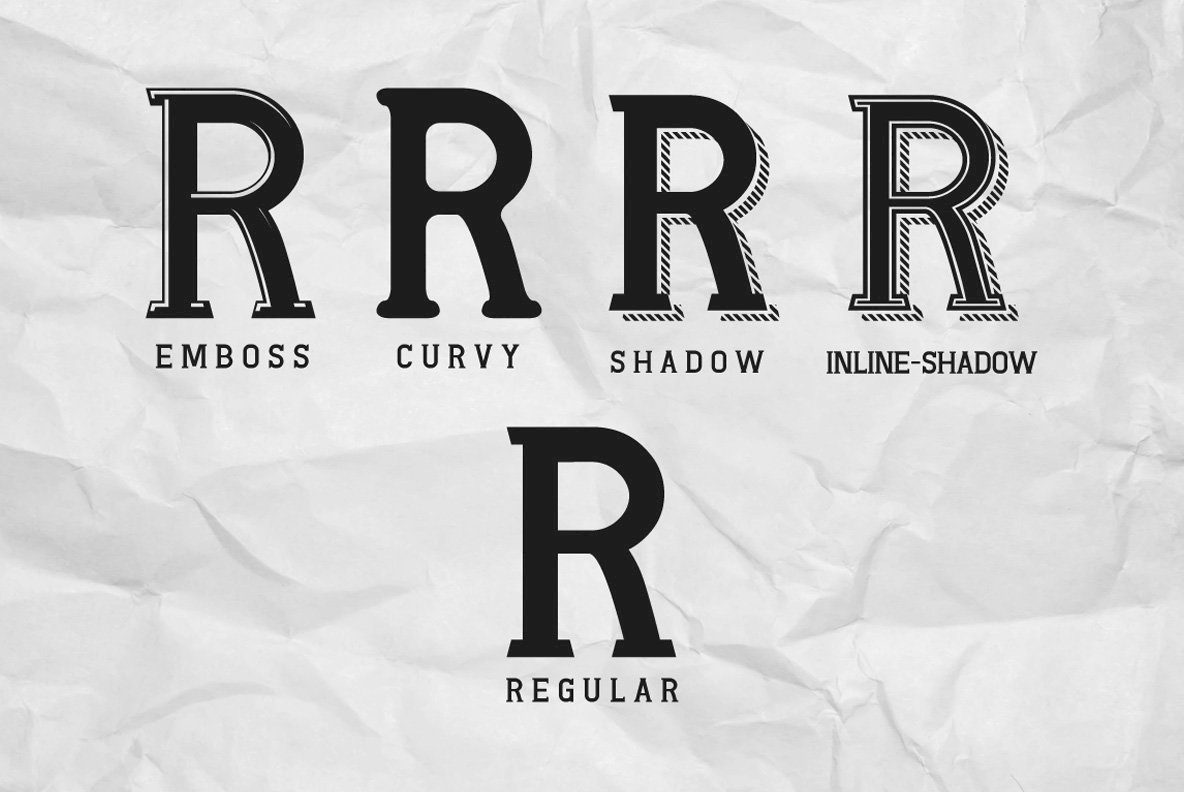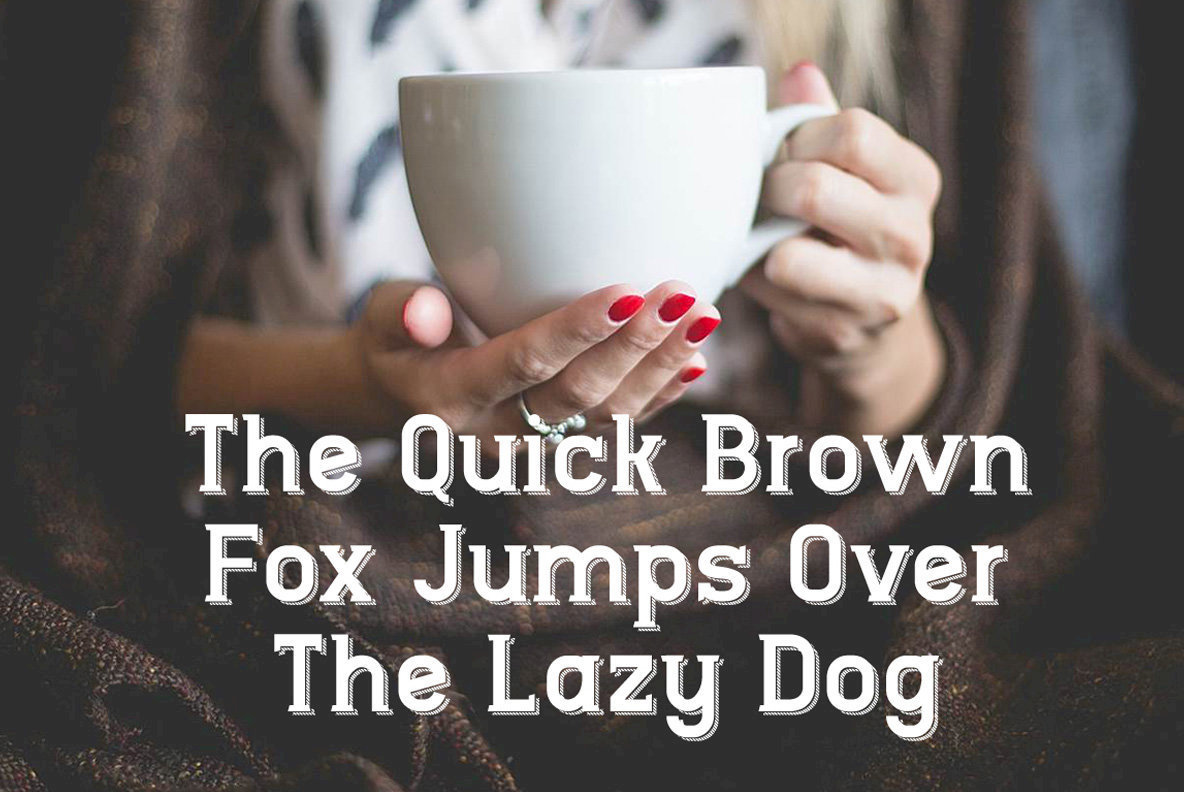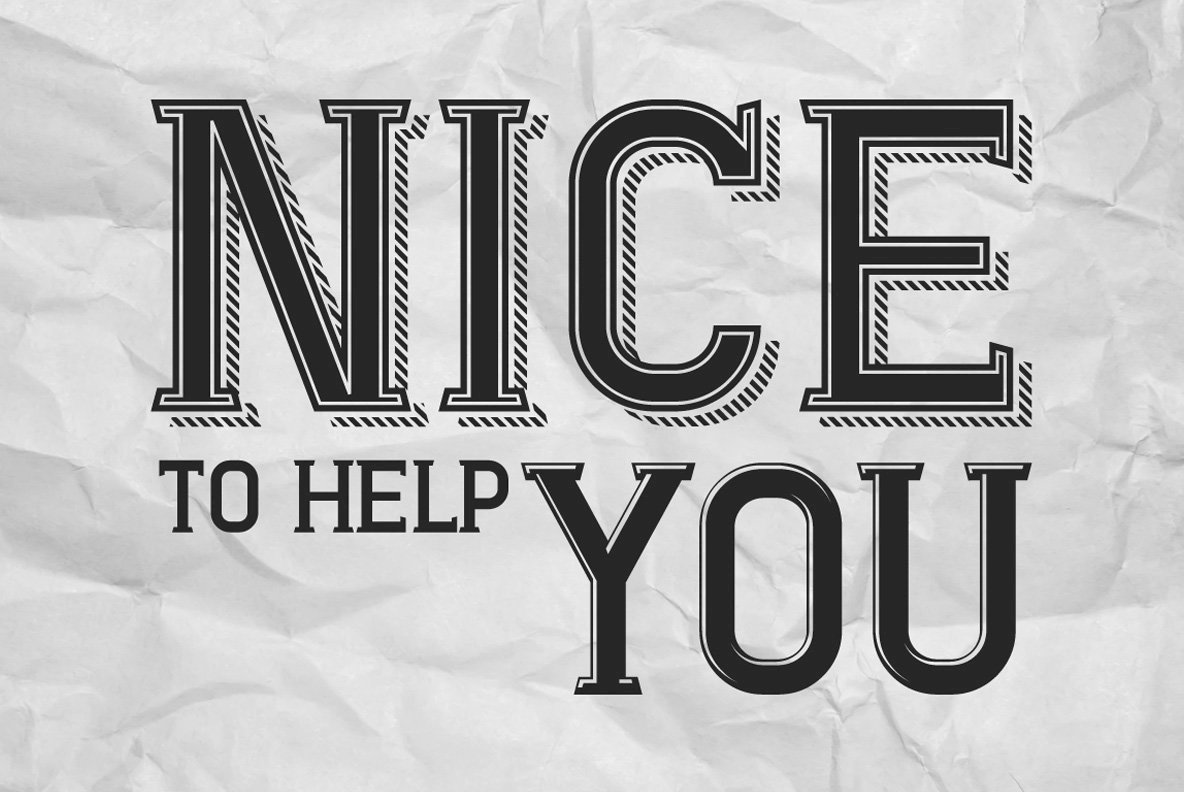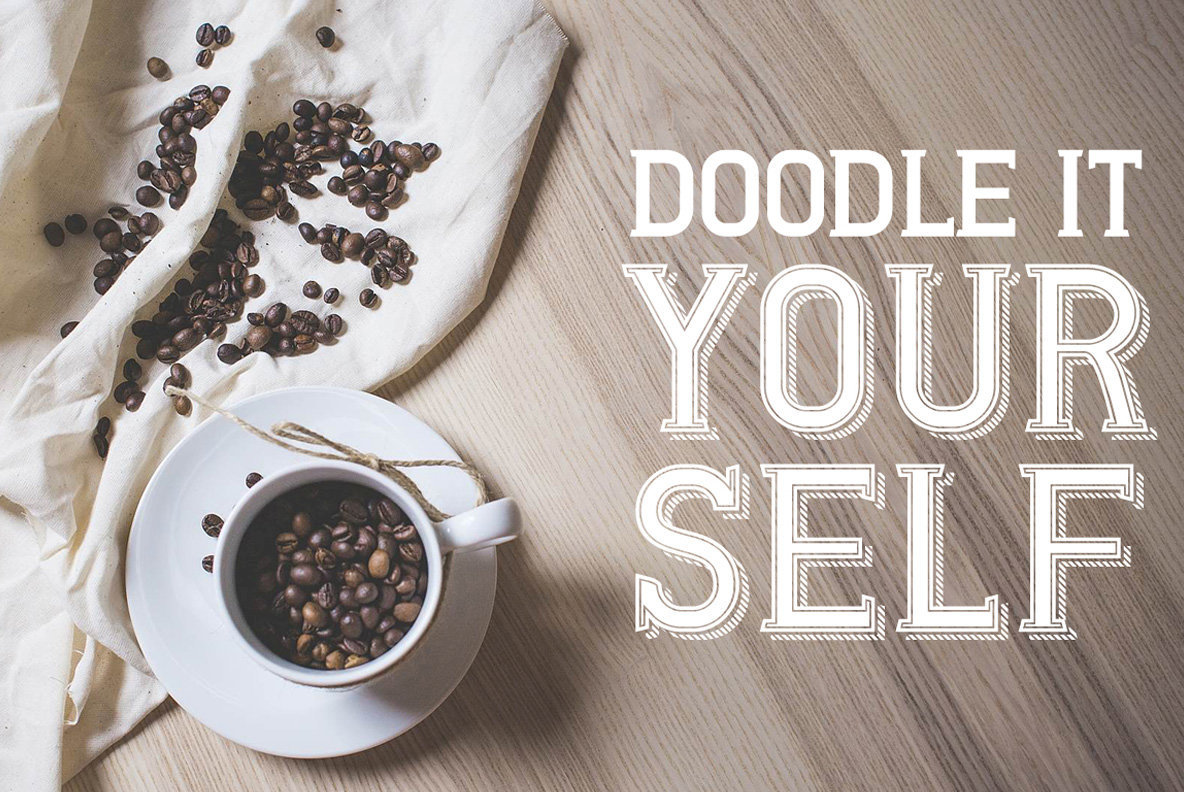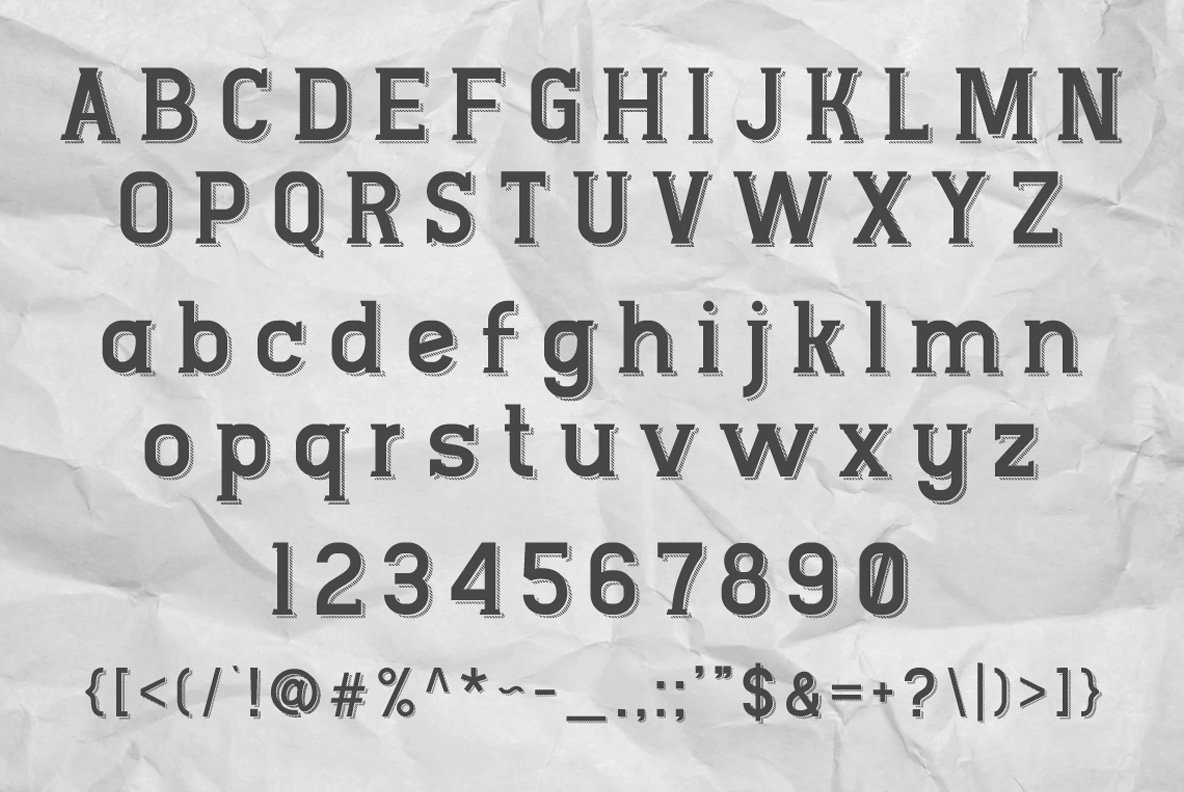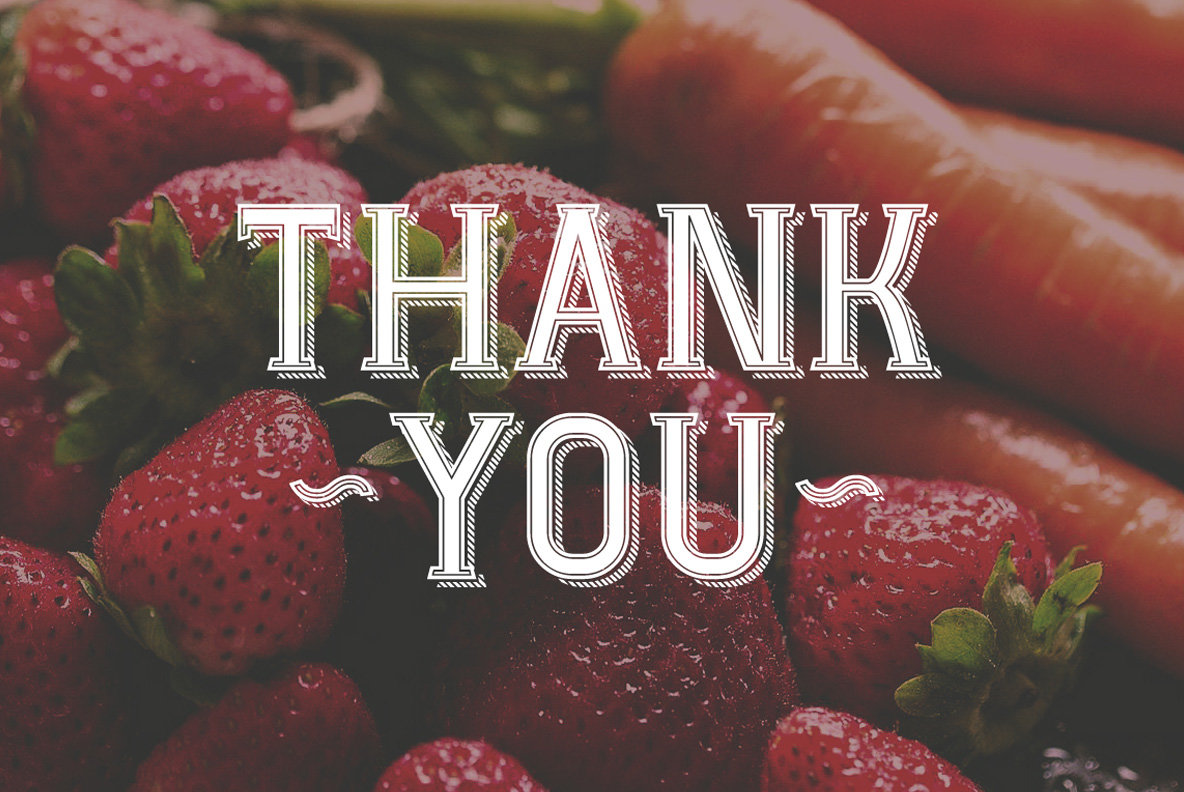
Ngopidoken: Fusion of Doodle and Slab Serif
Ngopidoken by Ahmad Ramzi Fahruddin offers a playful blend of doodle and slab serif elements. This font pack introduces versatility to your design toolkit, perfect for headlines, subheadlines, body text, and quotations. It's a versatile choice for any display need, having been rigorously tested in various design environments like Photoshop, Illustrator, and CorelDraw.
Typeface Features
• Regular, Rounded, Emboss, and Shadow Styles – Cater to different design aesthetics.
• Uppercase and Lowercase – Balanced for legibility and style.
• Numbers and Punctuation – Comprehensive typographic options.